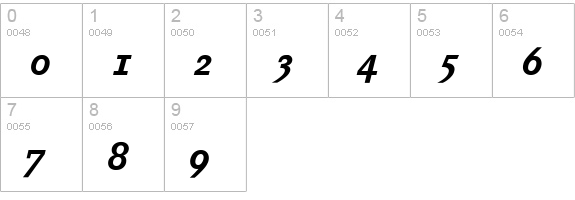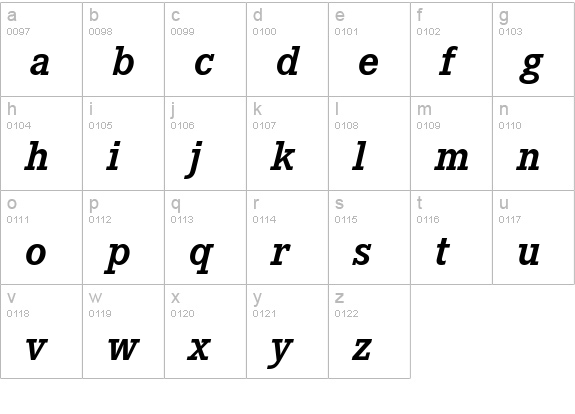
Corporate E Expert Bold Italic OsF Font Details
Corporate E Expert Bold Italic OsF is a strong, high-contrast, italic variant in the Corporate typeface family \xE2\x80\x94 well suited to headlines, attention-grabbing titles, and strong calls-to-action.
Introducing Corporate E Expert Bold Italic OsF font, a sleek and modern typeface designed for corporate and professional use. This font exudes confidence and sophistication with its bold and italicized appearance, making it perfect for branding, marketing materials, and business communications. The Corporate E Expert Bold Italic OsF font is not only stylish and versatile but also incredibly easy to read, making it ideal for both print and digital applications. Its clean lines and sharp edges give a polished and professional look to any project. Best of all, this impressive font is available for free download at FontsMarket.com. Don't miss out on the opportunity to enhance your designs with the Corporate E Expert Bold Italic OsF font - download it today and take your branding to the next level!